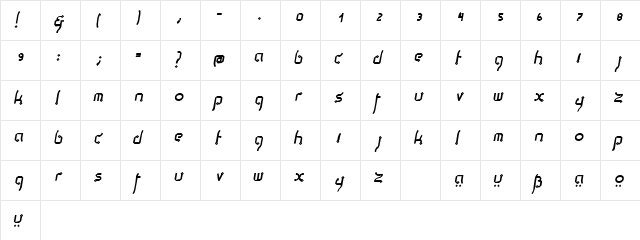
Thaipe Italic
Design Context for Thaipe Typeface
Thaipe takes a measured approach to typography — its balanced proportions and neutral character make it a reliable workhorse for both digital and print work. Its italic angle brings a sense of urgency and motion to the letterforms.